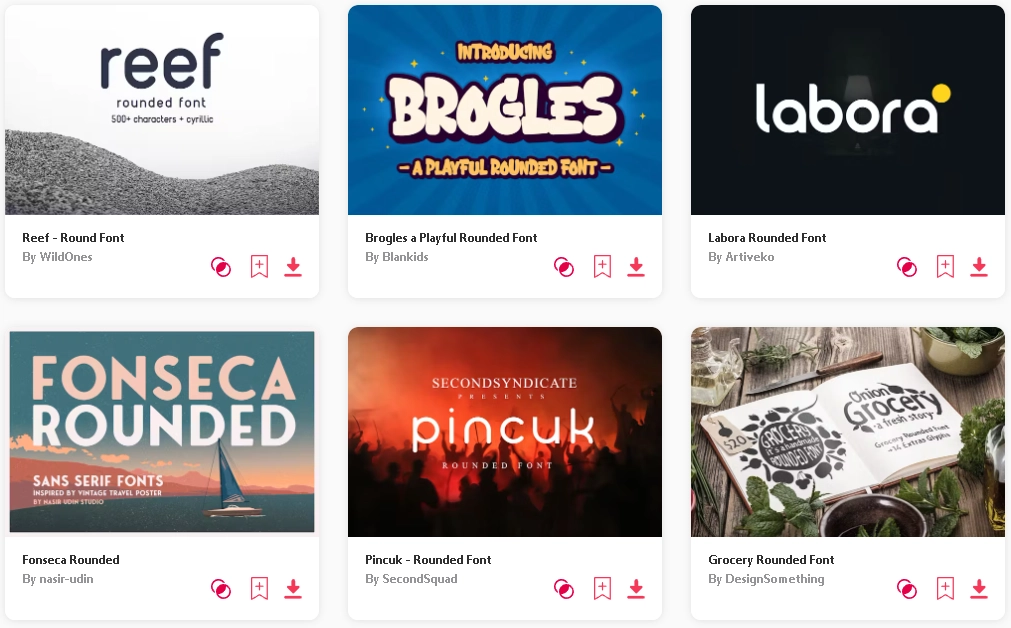
9+ Best Rounded Fonts For Designers
If you’re searching for the best rounded fonts, you’ve come to the right place!
Rounded fonts, known for their soft curves and circular designs, bring a touch of warmth and friendliness to any project. While sans-serif rounded fonts are the most common, there are also elegant rounded serif fonts that can add a unique flair to your work.
These fonts are perfect for creating a welcoming and approachable look, making them popular in branding, marketing, and design. However, finding the right one to make your work stand out and convey the perfect message can be a challenge.
To help you navigate through the plethora of options, we’ve curated a list of the best rounded fonts that offer a harmonious blend of modern simplicity and friendly appeal. Say goodbye to the overused Comic Sans, and elevate your designs with these carefully selected typefaces.
9+ Best Rounded Fonts For Designers
1.Fonseca Rounded Font
Fonseca Rounded is a beautiful sans serif font inspired by vintage travel posters, offering a contemporary feel with a timeless and classic appeal. This versatile typeface is ideal for headlines, posters, logos, branding projects, magazines, and packaging.
• Stylistic alternates for letters ‘O’ and ‘E’
• Special ligatures LA, LE, LI, LO, LU
Elevate your design projects with Fonseca Rounded, a font that seamlessly blends modern simplicity with a friendly appeal.
2. Jt Gilboys | Rounded Font
Jt Gilboys is a bold and characterful rounded font inspired by traditional rounded typefaces. Its fat and rounded design makes it perfect for editorial projects, brand names, and world name designs. The font offers versatility with various glyphs, allowing for a unique and charismatic appearance in any design.
Elevate your projects with Jt Gilboys, a font that combines boldness and rounded elegance for a standout look in any application.
3. Toms Bunich – Rounded Font
Toms Bunich is a rounded font characterized by its smooth curves and elegant visual style. This font exudes charm and sophistication, making any project look stunning and attractive.
Toms Bunich is versatile, suitable for various projects like headings, logos, invitations, branding, magazines, photography, cards, product packaging, mockups, mugs, posters, labels, editorials, and advertising. This font brings a touch of elegance and charm to every design.
4. Adline – Rounded Font
Adline is a minimalist rounded font ideal for both personal and business use. Its clean and smooth design brings a modern touch to any project, making it versatile for various applications.